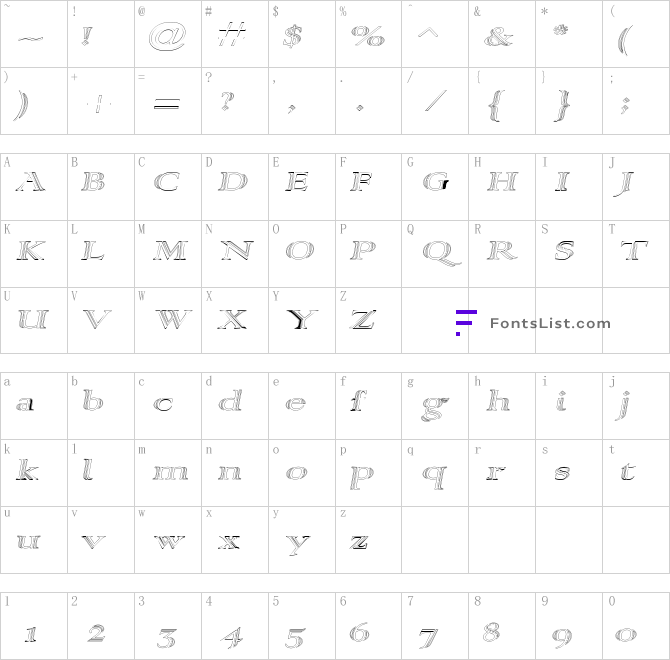
- Font Name:AlphaRev Hollow
AlphaRev-Hollow.ttf is a very beautiful artistic font, AlphaRev-Hollow.ttf is widely used in the design and printing of various books and pictures,AlphaRev-Hollow.ttf has a strong visual impact,AlphaRev-Hollow.ttf is a commonly used font in newspapers, magazines and books, and is used in posters, e-commerce Poster design, store design, logo design, font design and other fields.AlphaRev-Hollow.